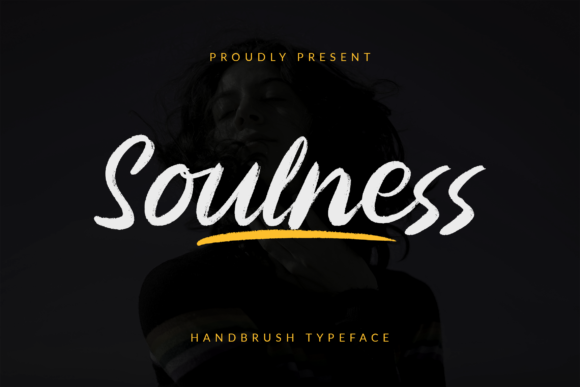
In a world teeming with digital monotony, Soulness Font emerges as a beacon of individuality, a stroke of creative genius that dances across the screen like a symphony of inked whispers. This exquisite brushed handwritten font, crafted by the visionary artists of ahweproject, is not just a collection of letters; it's an invitation to unleash your inner artist, to paint your words with the colors of emotion and the textures of life.
With its fluid strokes and captivating curves, Soulness Font is a visual masterpiece that breathes life into your designs. Its bold yet versatile nature makes it the perfect choice for a myriad of creative endeavors, from urban street art to casual branding projects that yearn for a touch of the extraordinary.
Picture this: your designs adorned with the grace of Soulness Font, commanding attention with its undeniable presence, yet whispering its message with the delicate touch of a gentle breeze. Your words will dance off the page, captivating your audience with their newfound eloquence, their newfound soul.
Soulness Font is more than just a font; it's an expression of your unique style, a reflection of your creative spirit. Let your imagination soar, let your fingers glide across the keyboard, and watch as Soulness Font transforms your words into works of art.
With Soulness Font, you're not just designing; you're creating an experience, a connection between you and your audience. Their eyes will linger on every letter, savoring the intricacies of each stroke, deciphering the hidden messages woven into the fabric of your words.
So, embrace the allure of Soulness Font, let it ignite the fire of your creativity, and embark on a journey of artistic exploration that will leave a lasting impression on the hearts of your audience.